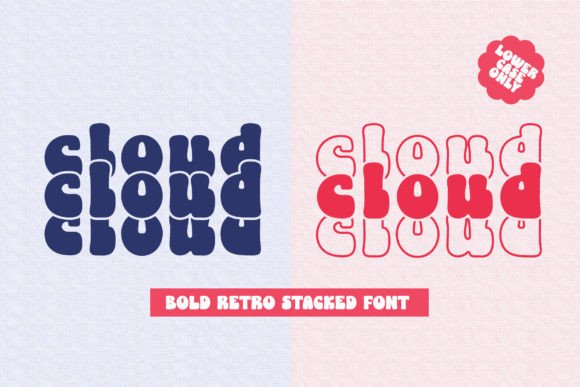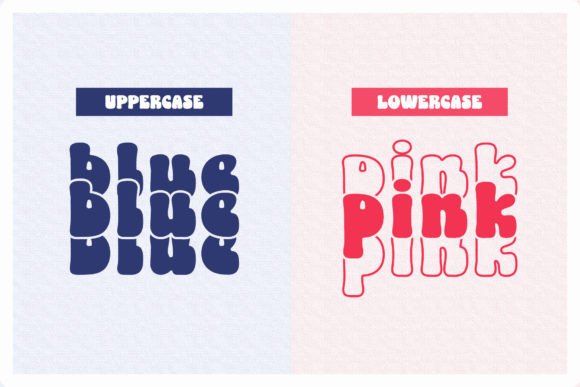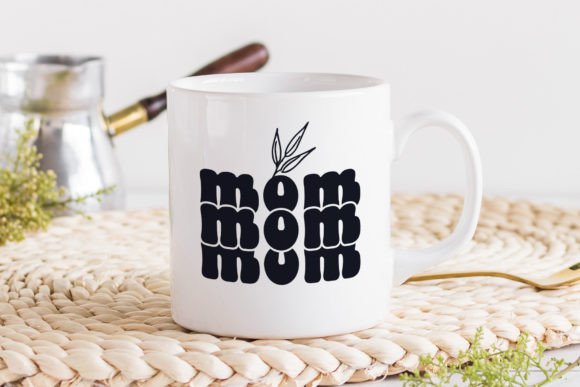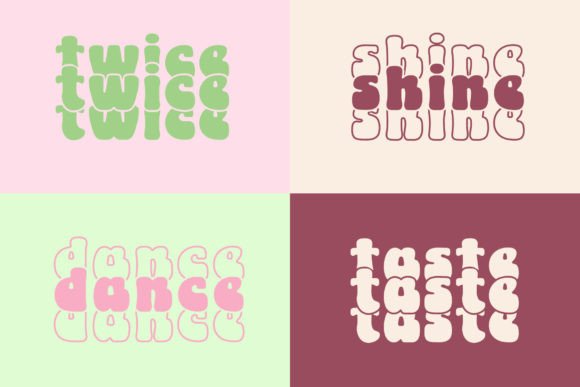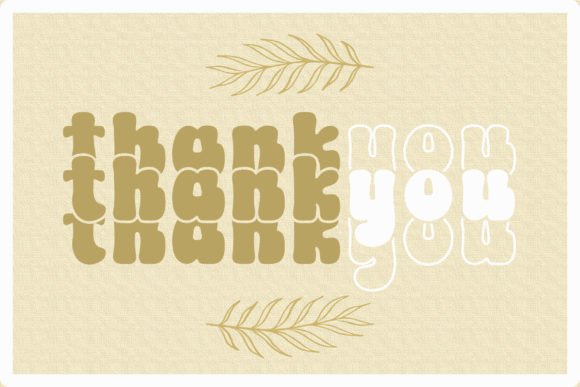
Cloud Font
Cloud Stacked is a lowercase stacked font with retro and vintage vibes. This is bold, cute, and playful.
This is all lowercase stacked font. Uppercase is solidly stacked, and lowercase is outline stacked.
This display font is the perfect font for any crafting project, such as a poster, t-shirt quote, mug, sticker, sublimation, and many more.